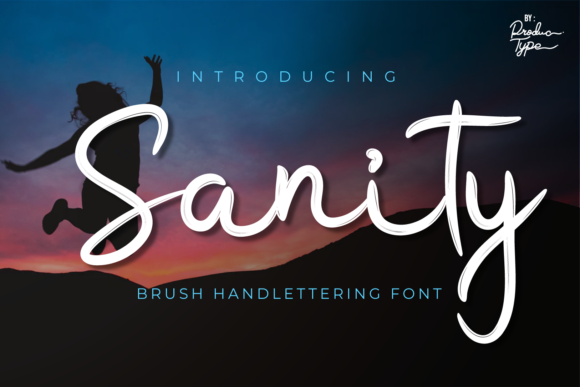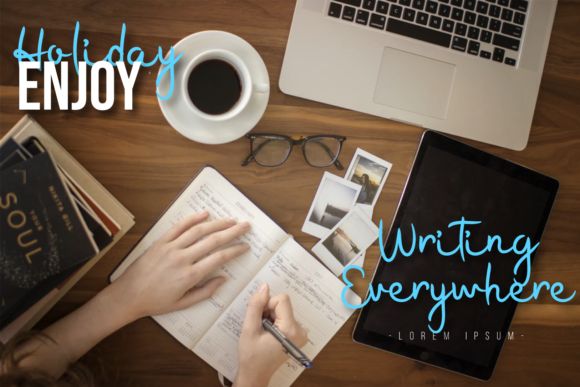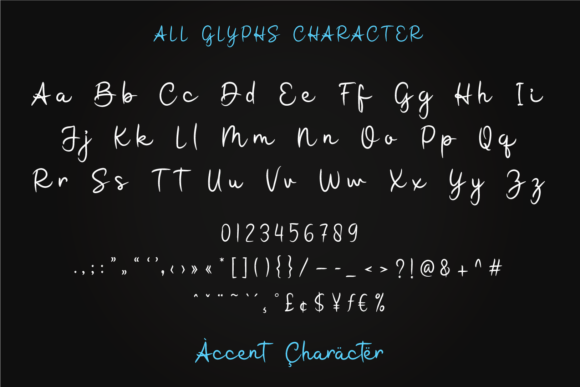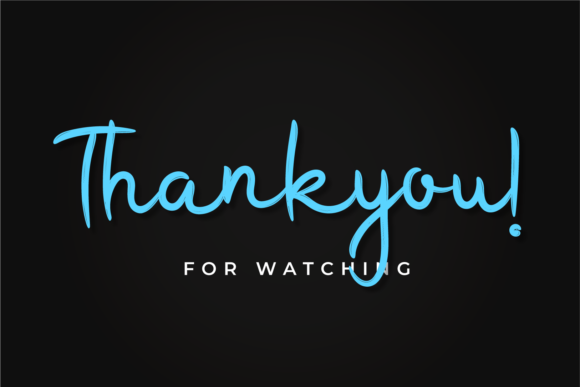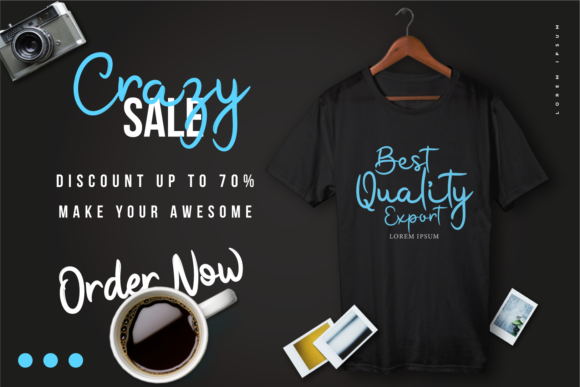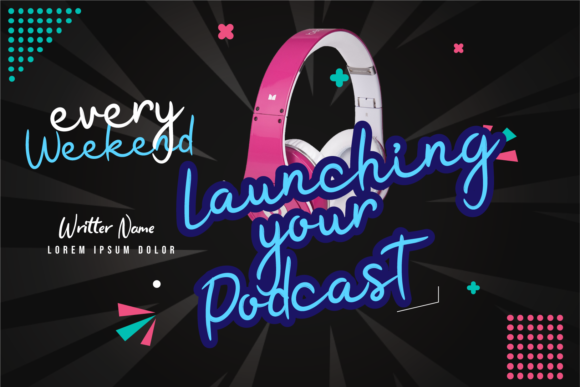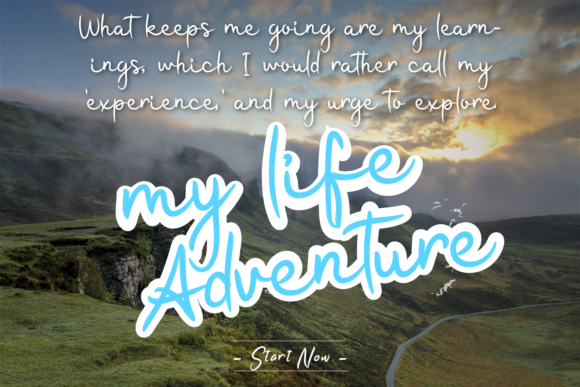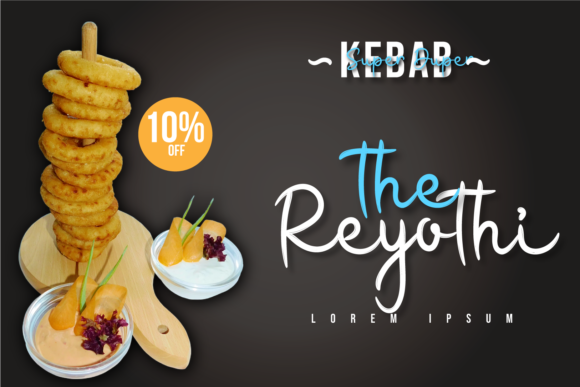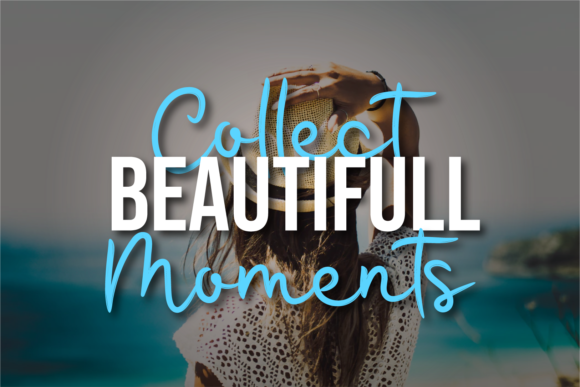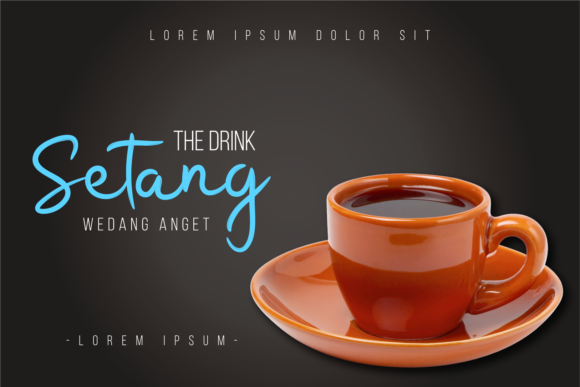
Sanity Font
About Sanity Font
Introducing Sanity: The Flowing and Round Lettered Handwritten Font
Discover the beauty of Sanity, a font crafted with the gentle strokes of a paintbrush, resulting in flowing and round letterforms. Its artistic charm makes it a fabulous choice for a variety of design ideas, both formal and informal. Embrace the versatility of Sanity as it adds a touch of elegance to your projects, making them truly exceptional.
Sanity’s flowing and round lettering creates an organic and graceful vibe, allowing your text to dance across the canvas with a sense of ease and fluidity. Each letter carries the essence of artistic expression, making your designs stand out with a touch of creativity and finesse.
As a handwritten font, Sanity carries a sense of authenticity and warmth. Its handcrafted beauty adds a personal touch to your creations, leaving a lasting impression on your audience.
The font’s versatility shines through as it adapts effortlessly to various design ideas. Whether you’re working on formal invitations, business materials, or informal creative projects, Sanity fits seamlessly, adding a touch of sophistication to every endeavor.
Embrace the artistry of Sanity as you explore the depths of your creativity. Let it be the brush that paints your imagination, enriching your designs with a unique and stylish allure.
As you delve into the possibilities of Sanity, you’ll find it to be a font that enhances your projects to new heights. Its flowing and round lettered beauty transforms your work, ensuring that your creations look and feel fabulous in any context.
So, let Sanity be the font that elevates your design game. Embrace its artistic charm, and watch as your projects come to life with a touch of elegance and creativity. With Sanity as your go-to font, your designs will resonate with authenticity and grace, captivating your audience and leaving a lasting impression. Embrace the flowing beauty of Sanity and create designs that are a true work of art!